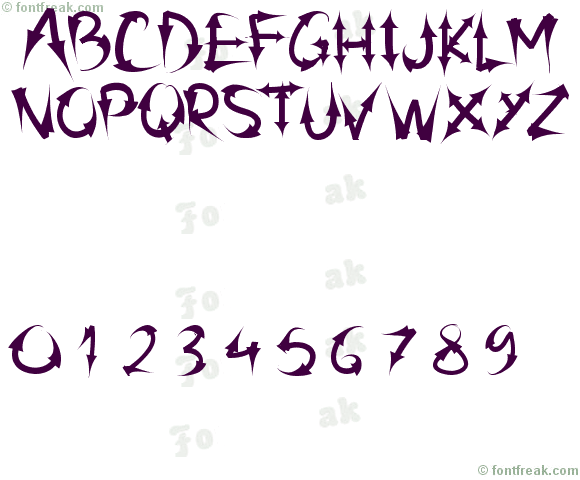
PW Arrow font
About PW Arrow font
The PW Arrow font by Peax Webdesign is a striking display typeface that captures attention with its unique geometric design. This font falls into the decorative category, characterized by its bold, angular strokes and a modern aesthetic that makes it perfect for various creative projects. The stroke weight is consistent, providing a clean look, while the slight contrast between the letterforms adds visual interest. The spacing is well-balanced, ensuring readability without compromising style.
Ideal for a variety of use cases, the PW Arrow font can elevate wedding invitations with its contemporary flair, making them both stylish and memorable. It is also an excellent choice for movie posters, where its eye-catching design can effectively draw in audiences. Additionally, this font works well for restaurant menus, adding a sophisticated touch that complements culinary themes. Graphic designers and content creators will find it particularly useful for branding materials, where a strong visual identity is crucial.
What sets the PW Arrow font apart is its ability to blend modernity with functionality. Its distinctive character not only captures attention but also conveys messages clearly, making it a versatile choice for anyone looking to enhance their visual communication. With the PW Arrow font font free download available, users can easily incorporate this standout typeface into their creative toolkit, ensuring their projects are both stylish and impactful.